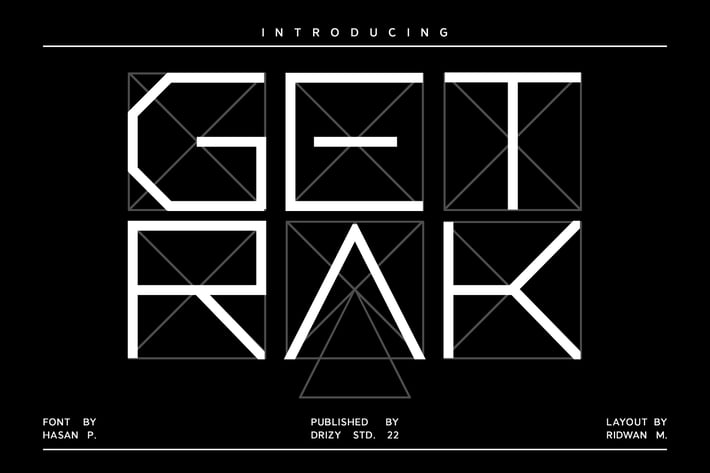
Getrak - Geometric Square Font
Getrak is a geometric square font from Drizy studio. Offering all the basic styles you will need for a modern theme.
Getrak Features:
All Caps
Multilinguals